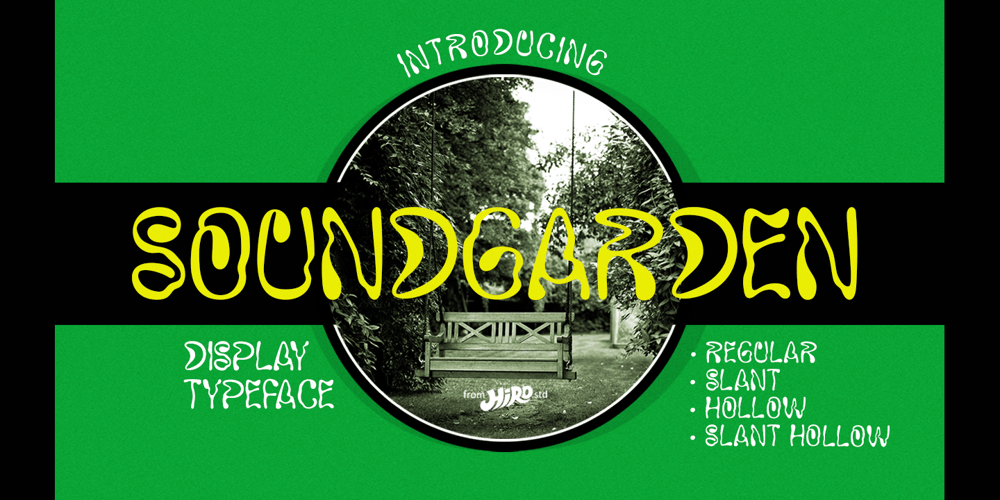
Soundgarden Font Family was designed by Chairul Ashar and published by HIRO.std. Soundgarden contains 4 styles and family package options. Soundgarden is a Display Typeface. This font describes about stylist, modern, psychedelic look, and easy to use. Soundgarden Display Typeface inspired from the modernity, psychedelic art and natural beauty. FEATURES- Uppercase and Lowercase letters- Numbering and Punctuations- PUA Encoded Characters- Multilingual Support- Works on PC or Mac- Simple Installation USESoundgarden Display Typeface works great in masthead, Logo, T-shirt/ Apparel, Poster and Magazine. Enjoy using!Thanks. HIRO.std